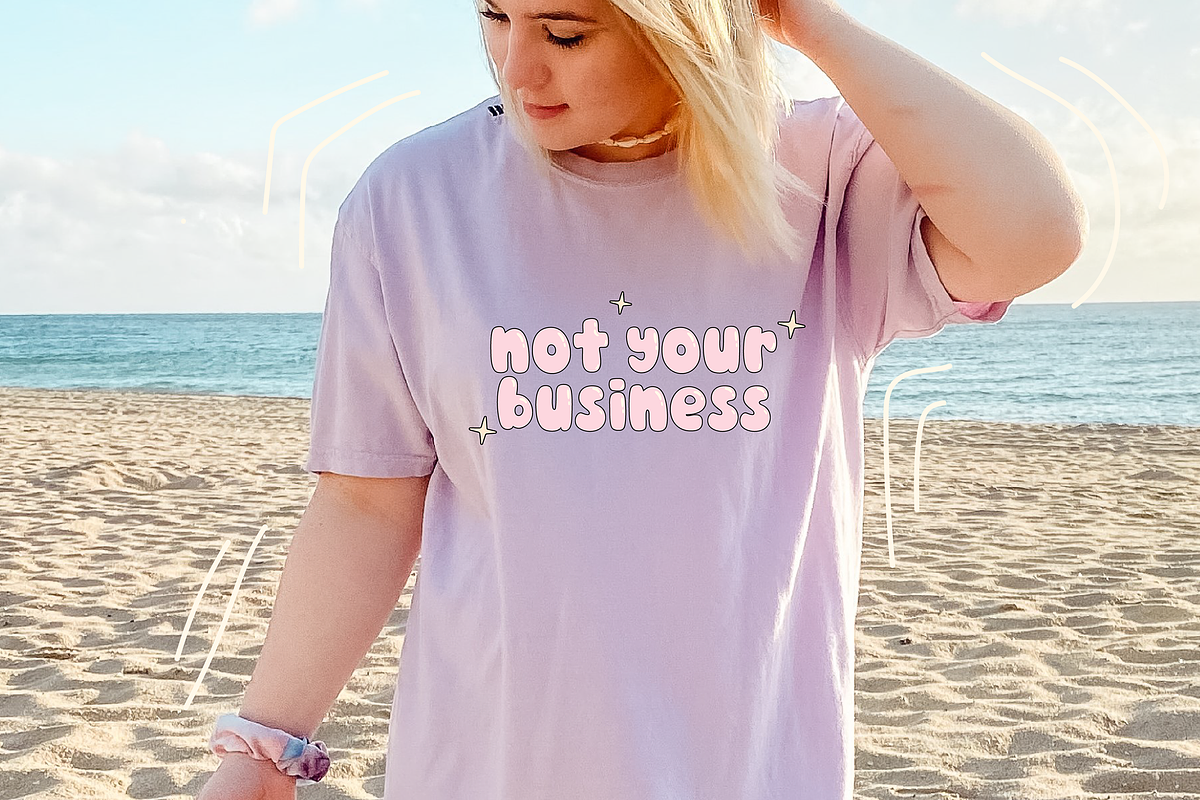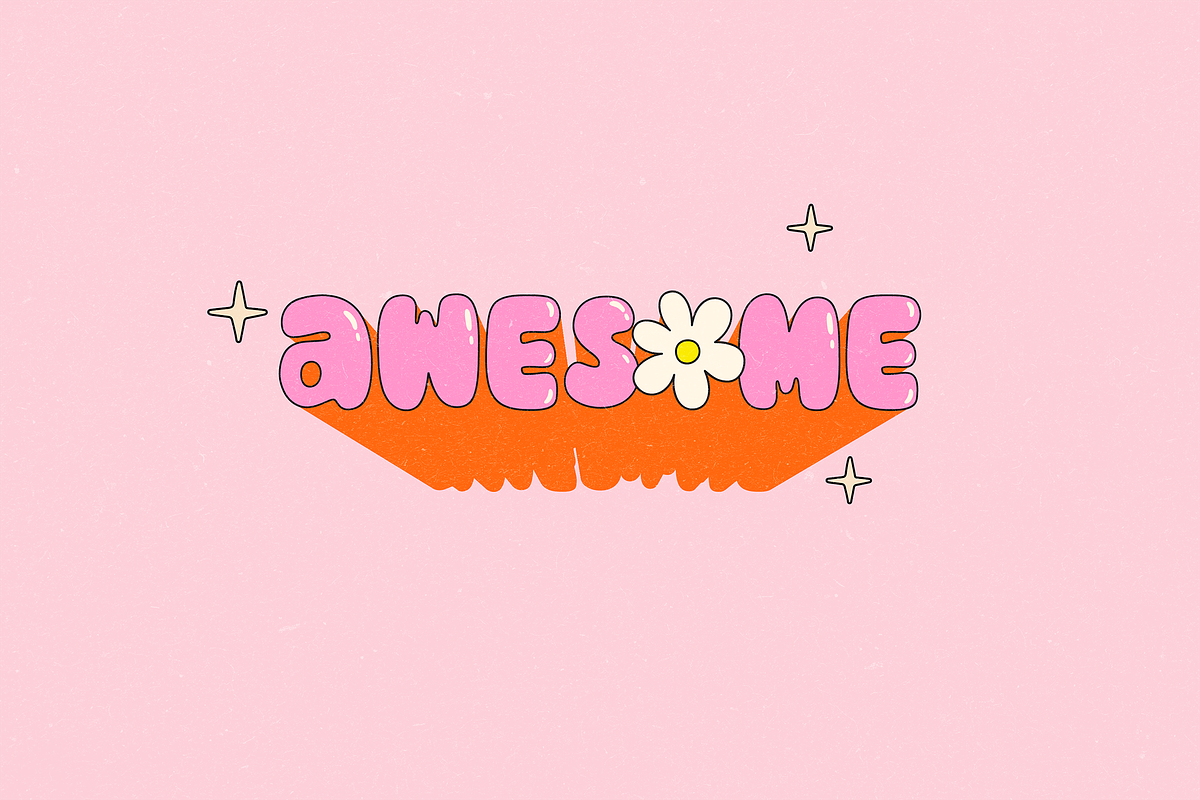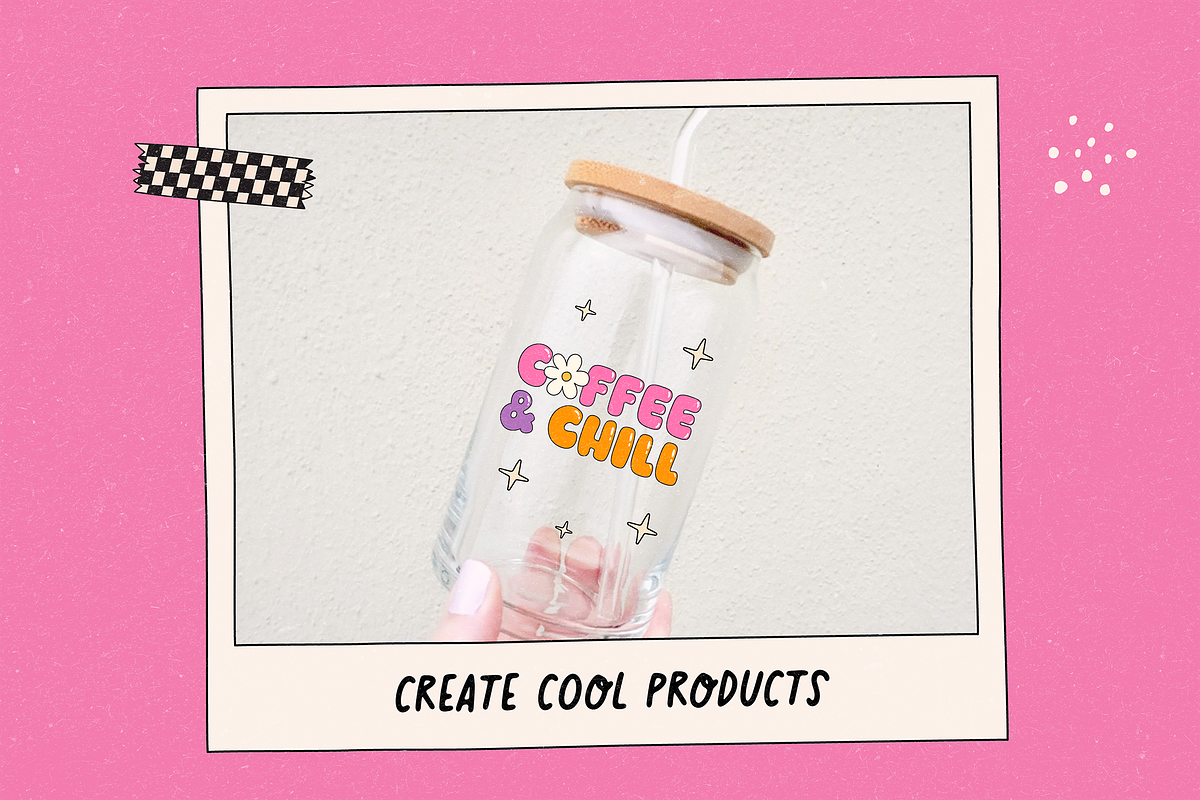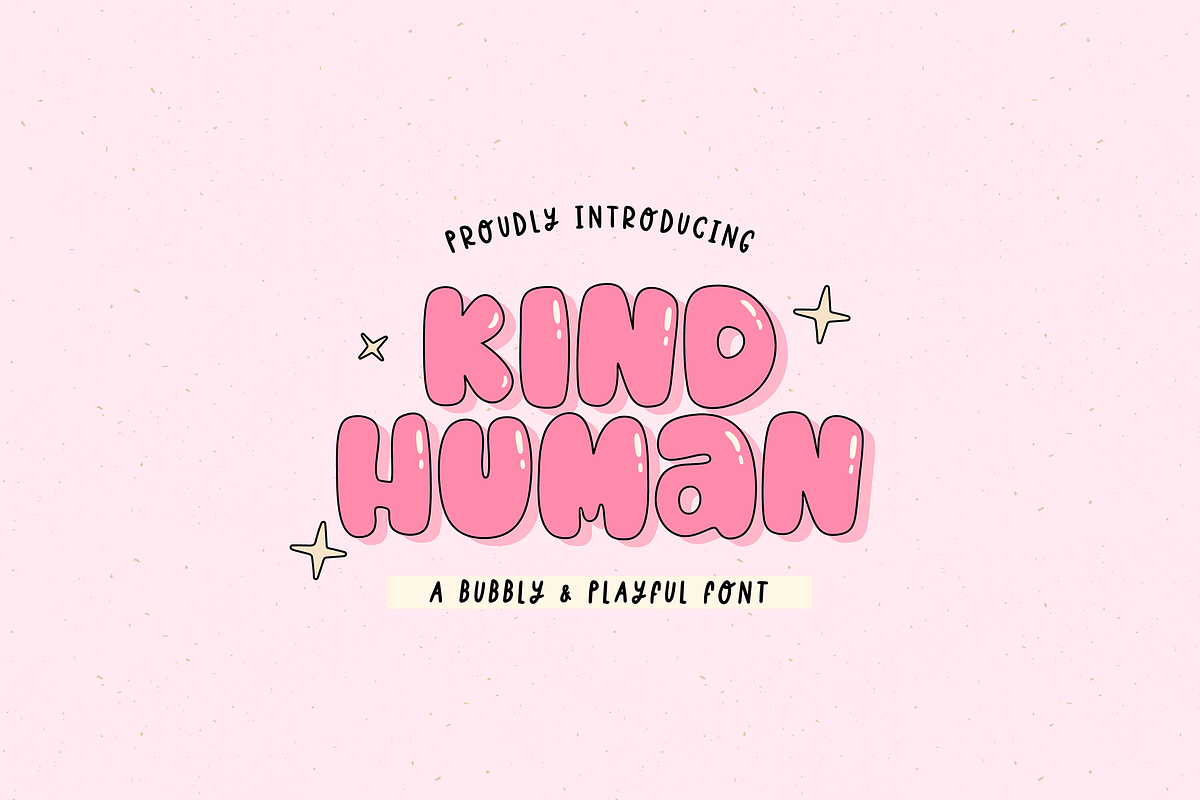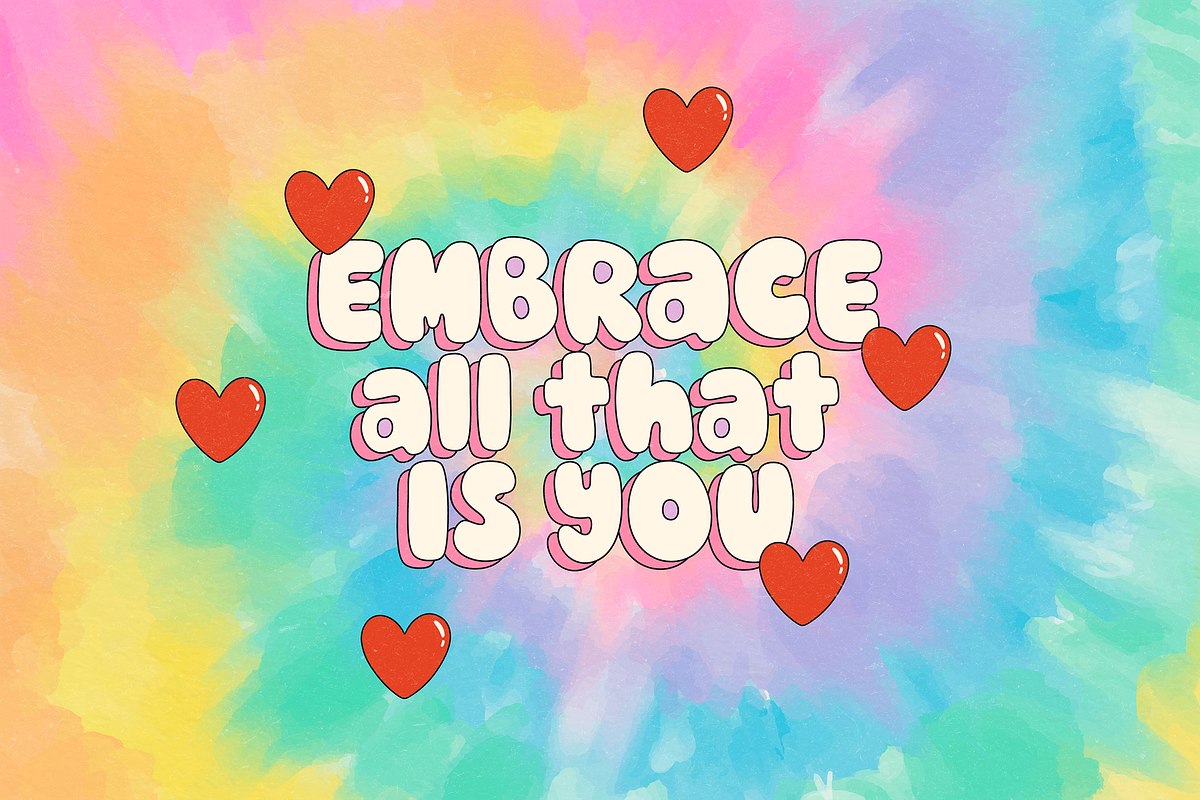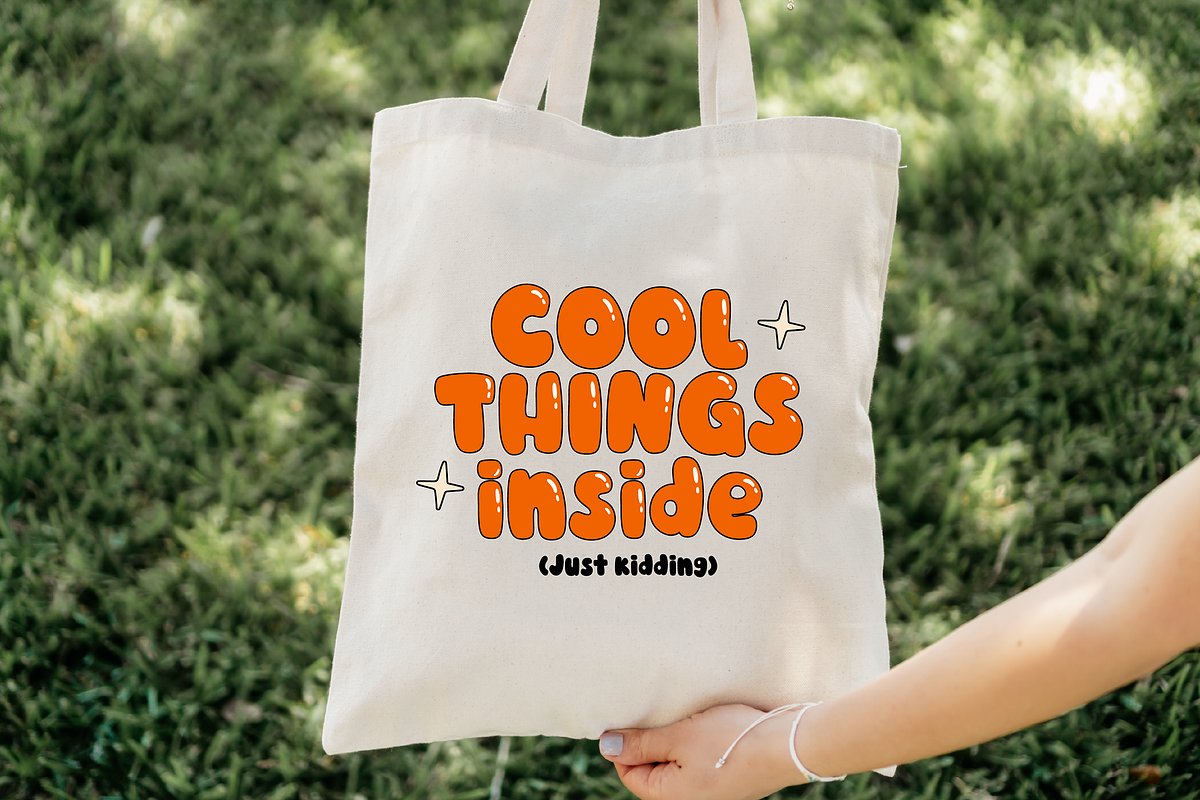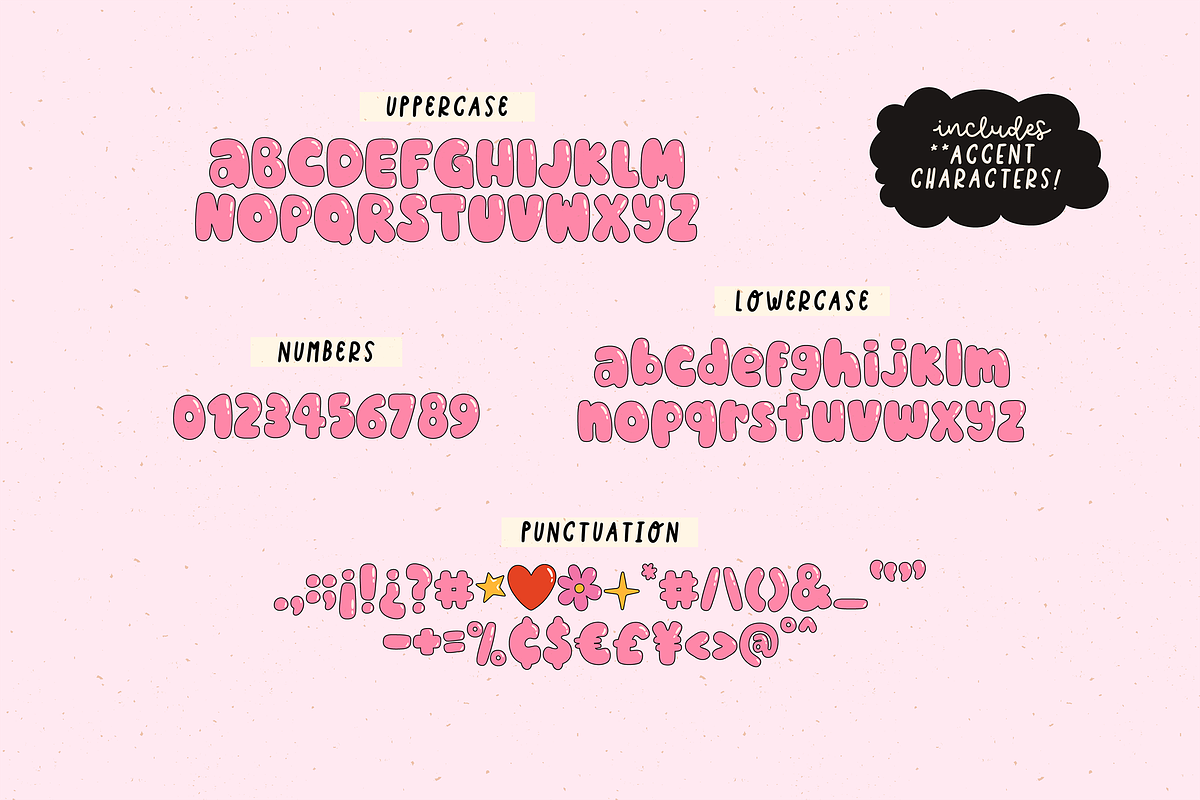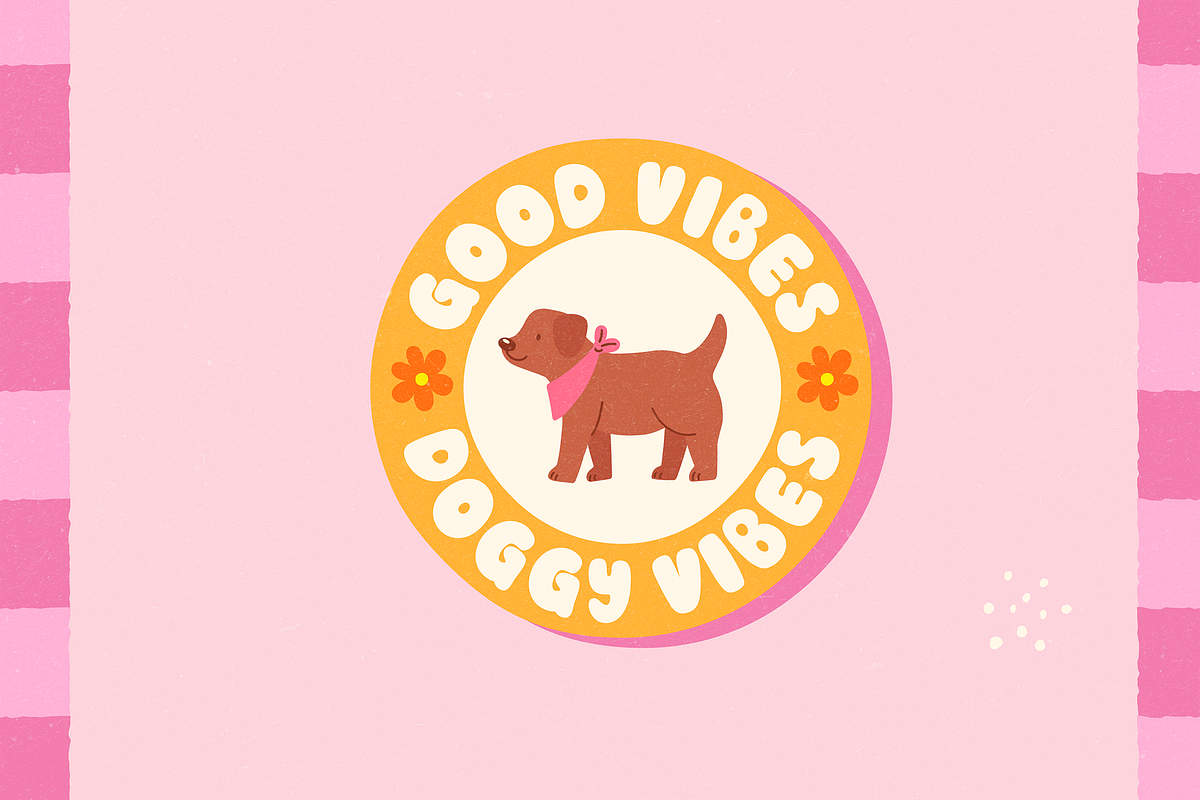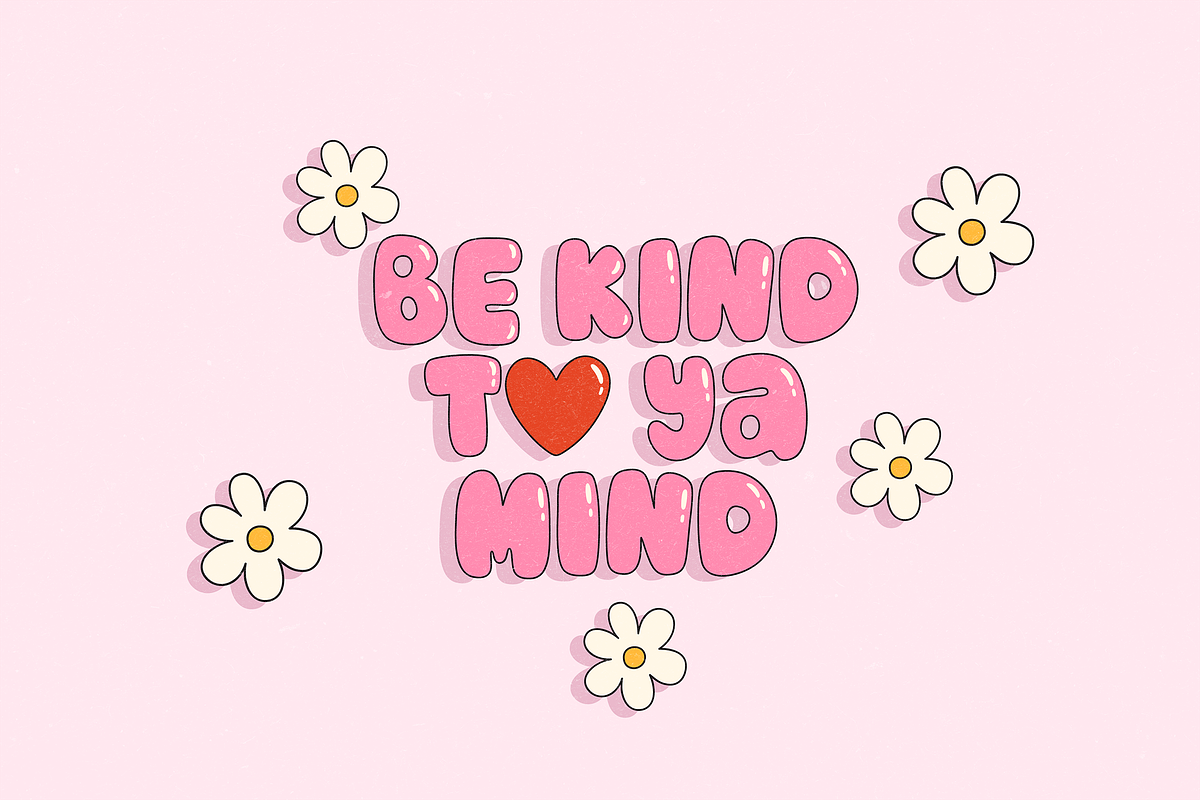
KIND HUMAN | Bubbly and Playful Font
KIND HUMAN is a bubbly, playful, and hand-drawn font perfect for adding a touch of fun and creativity to your designs. Whether you’re working on posters, t-shirts, stickers, mugs, quotes, or any other design project, this font is sure to make your work stand out.
Why Choose KIND HUMAN?
- Versatile: Perfect for branding, social media, and more.
- Unique Style: Hand-drawn with a cool, fun vibe.
- Special Editions: Includes "kind human-solid", "kind human-shine" and "kind human-outline."
- Hand-Drawn: Crafted with love and detail.
- Customizable: Easily adjust the thickness of the outline using design software like Illustrator, Photoshop, or Canva. No need to use "kind human-outline" unless you want to. (But I wanted to include this file just in case you need it)
- Branding Projects
- Stickers and Labels
- Social Media Posts
- Inspirational Quotes
- Posters and Apparel
- And more!
✷ Use the 4 symbols included to make cute compositions.
- Period centered symbol · – Flower
- Bullet symbol • – Star/shine
- Bar | - Heart
- Logical not – Star
Add a Touch of Fun
Have fun and be creative with KIND HUMAN. This font adds a playful and joyful element to your designs, making them more engaging and visually appealing.